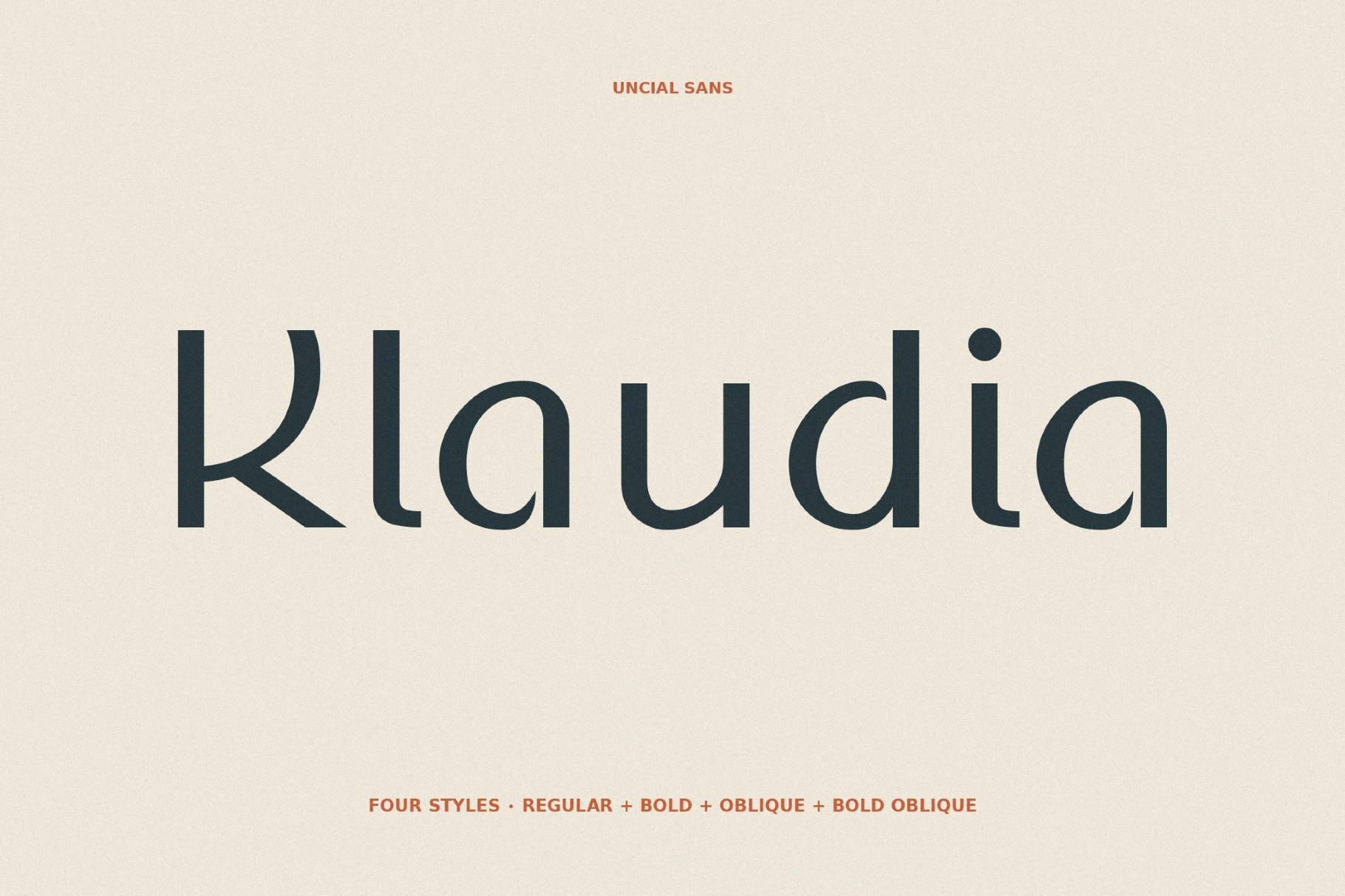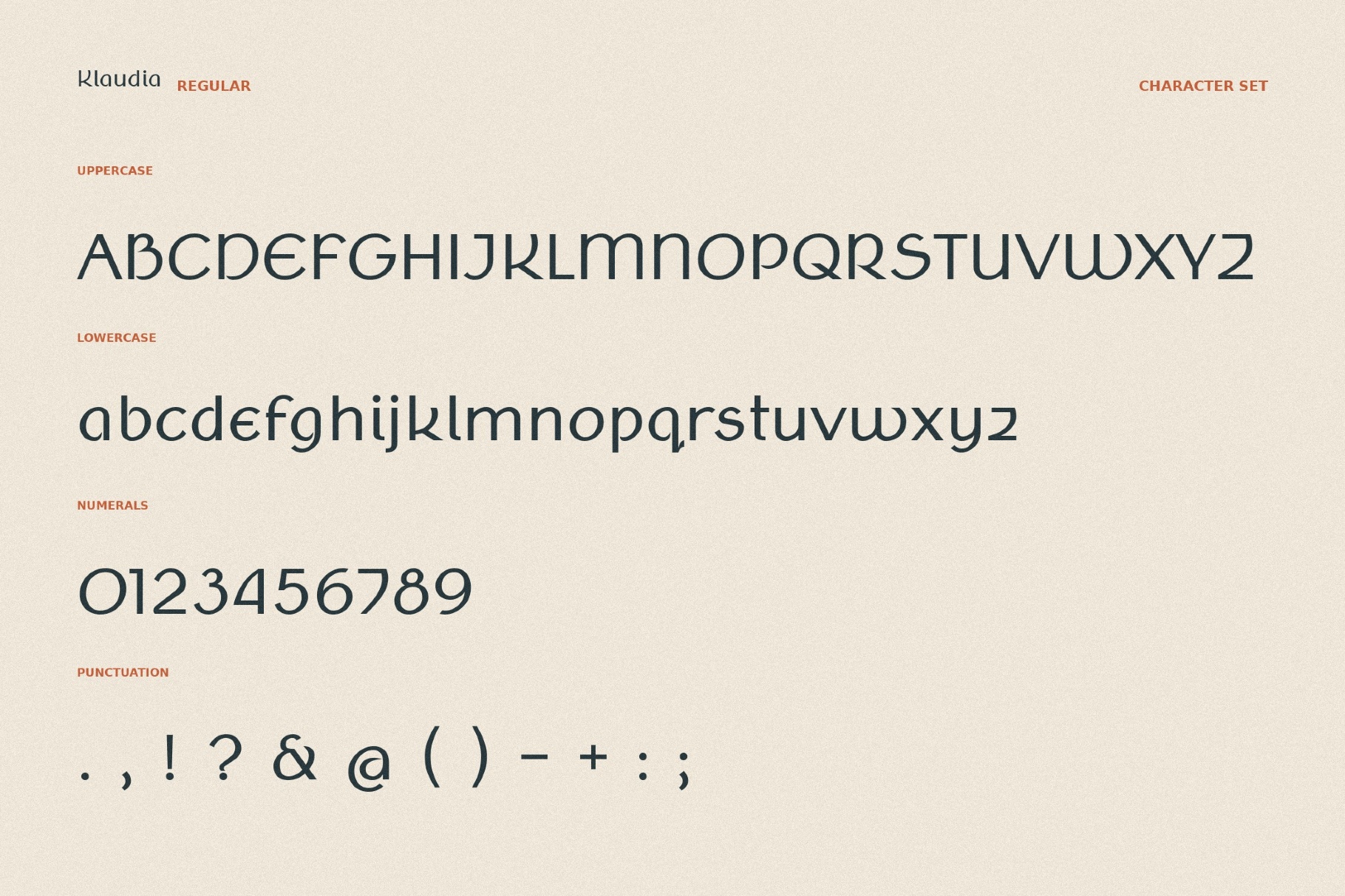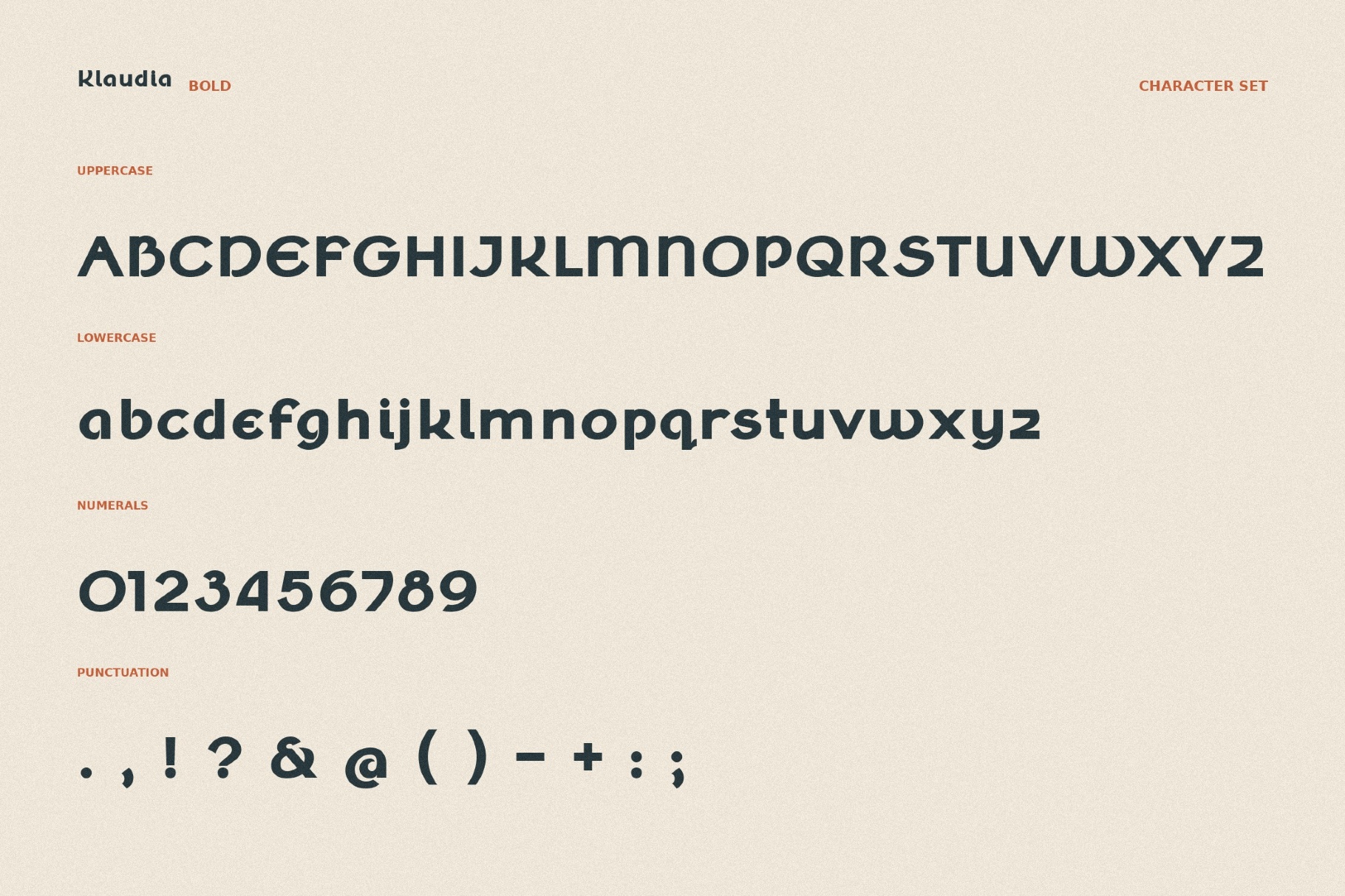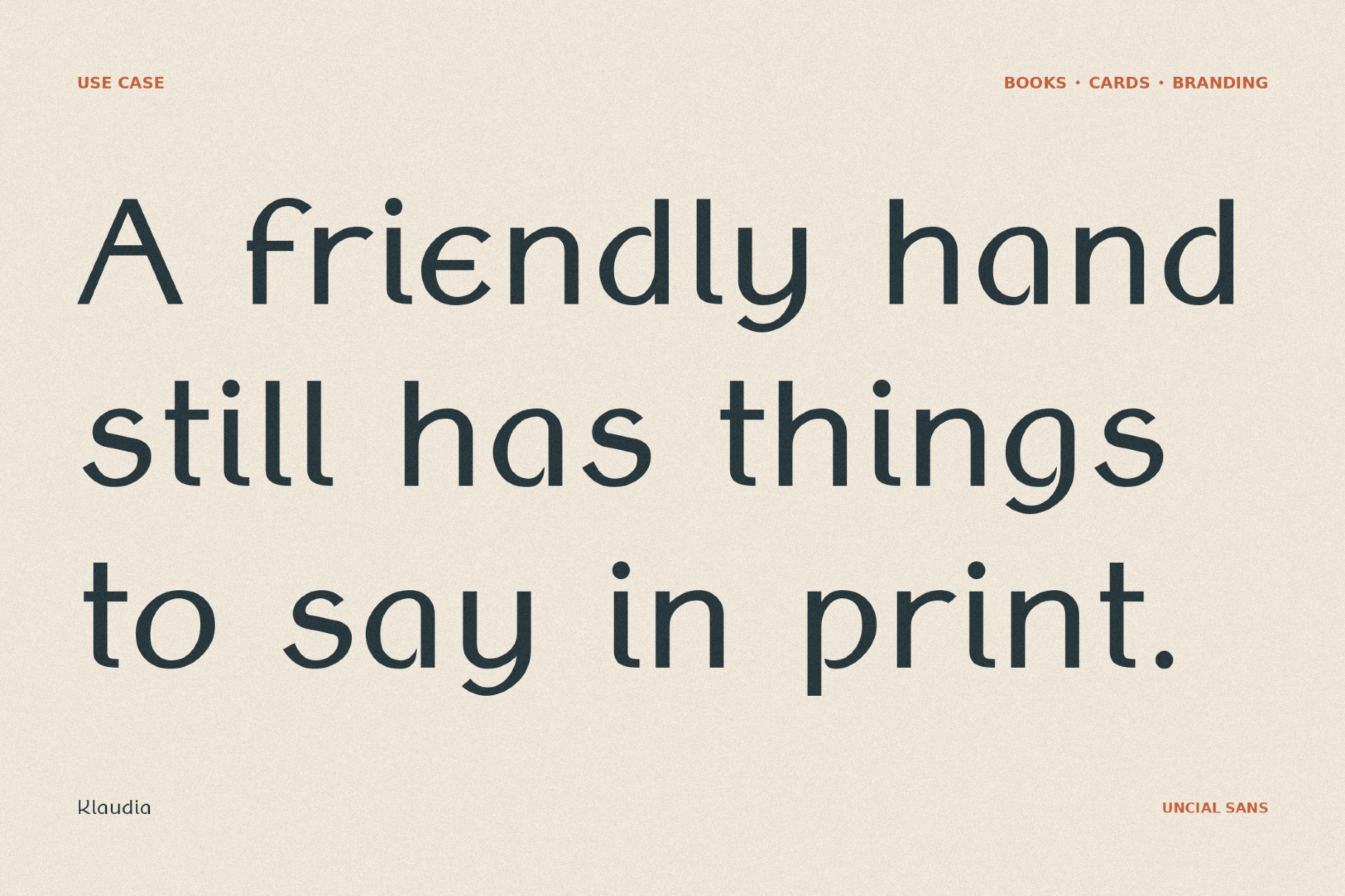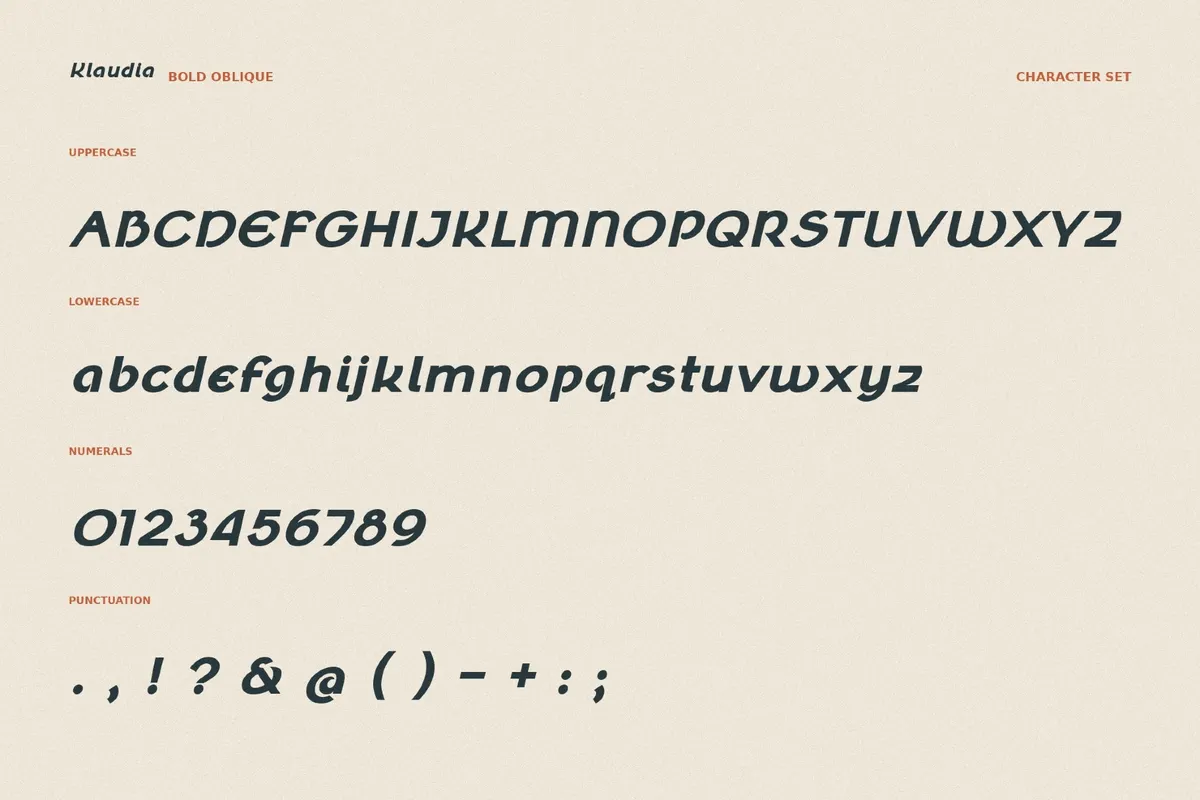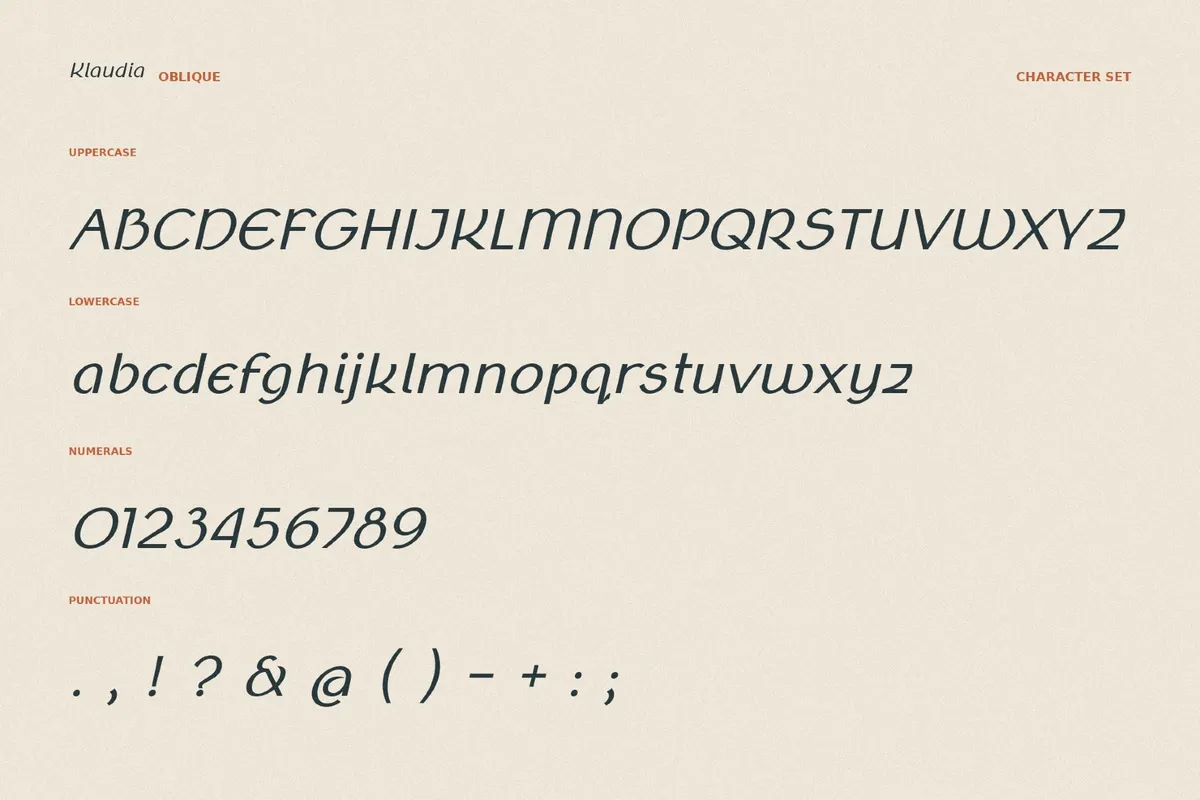
Klaudia - Fantasy Font Family
The bold fantasy font would sit comfortably on wine labels, wedding monograms, invitation suites, boutique identities, museum graphics, fantasy publishing, certificates, editorial openers, and packaging.
Klaudia leans into medieval elegance through tall vertical forms, fine curves, and a manuscript-inspired rhythm. You will find in the details references to Gothic book hands, Renaissance print, and European calligraphy.
• 4 styles: Regular, Bold, Oblique, and BoldOblique;
• uppercase and lowercase letters;
• numbers, punctuation, dingbats, and symbols;
• multilingual support across the extended Latin script;
• ligatures.